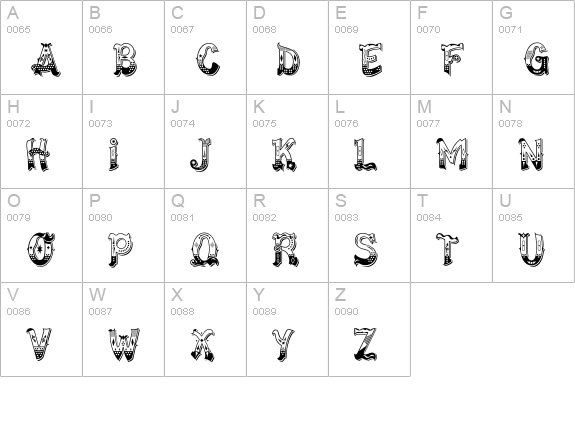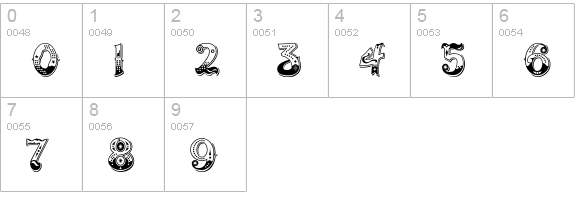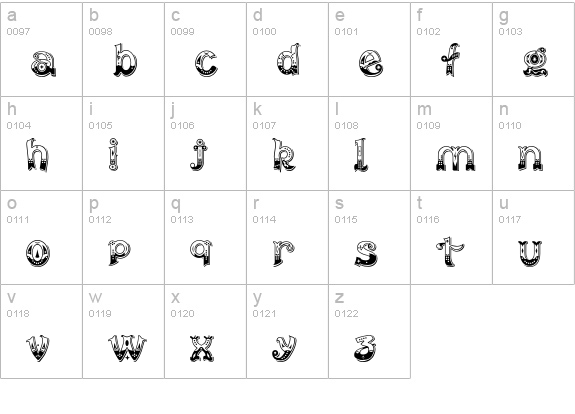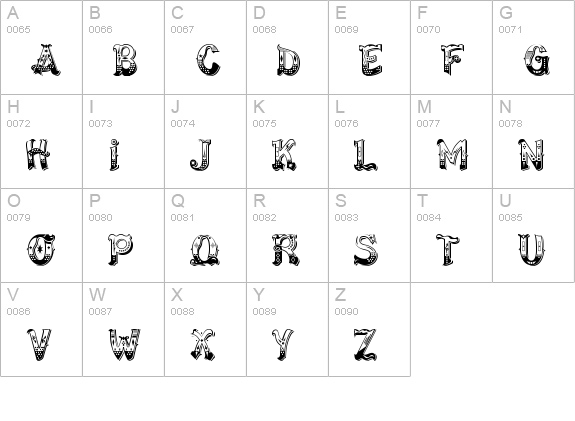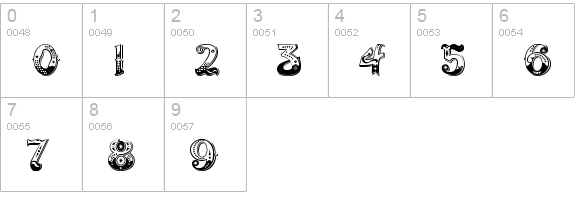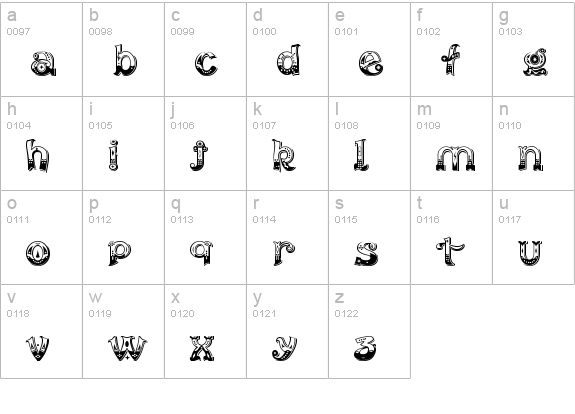
CarnavaleDelight Font Details
CarnavaleDelight font is a whimsical and playful typeface that brings a sense of fun and festivity to any design project. With its unique curves and swashes, this font is perfect for adding a touch of joy and celebration to invitations, posters, and more. The free-spirited nature of CarnavaleDelight font makes it a versatile choice for a variety of creative endeavors, whether you're designing a party invitation or a social media graphic. Best of all, CarnavaleDelight font is available for free download at FontsMarket.com, making it easily accessible to anyone looking to add a bit of flair to their projects. So go ahead and bring a little extra delight to your designs with the charming CarnavaleDelight font!